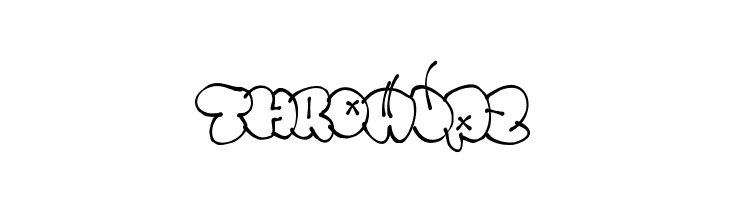
Throwupz Font
A bold, graffiti-style font with bubble-like letters and urban flair.
A bold, playful font with thick, rounded shapes and a whimsical style.